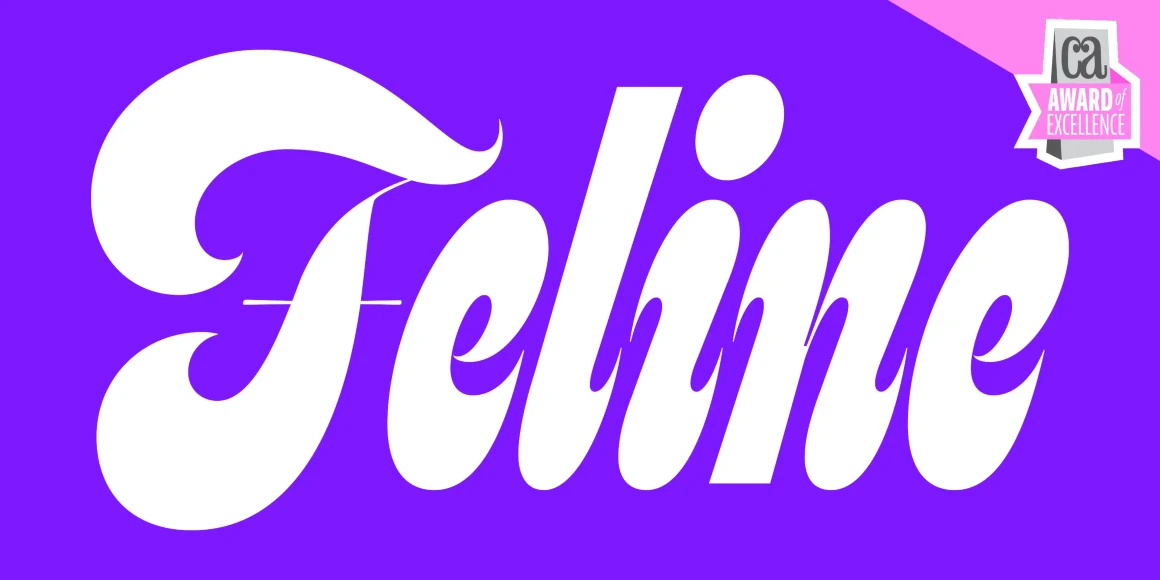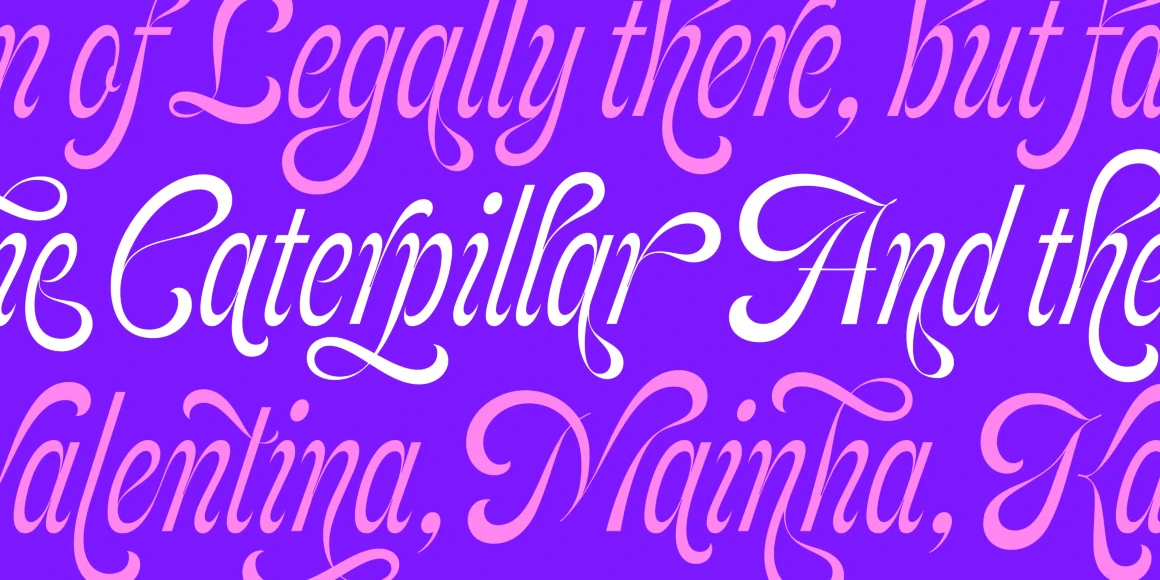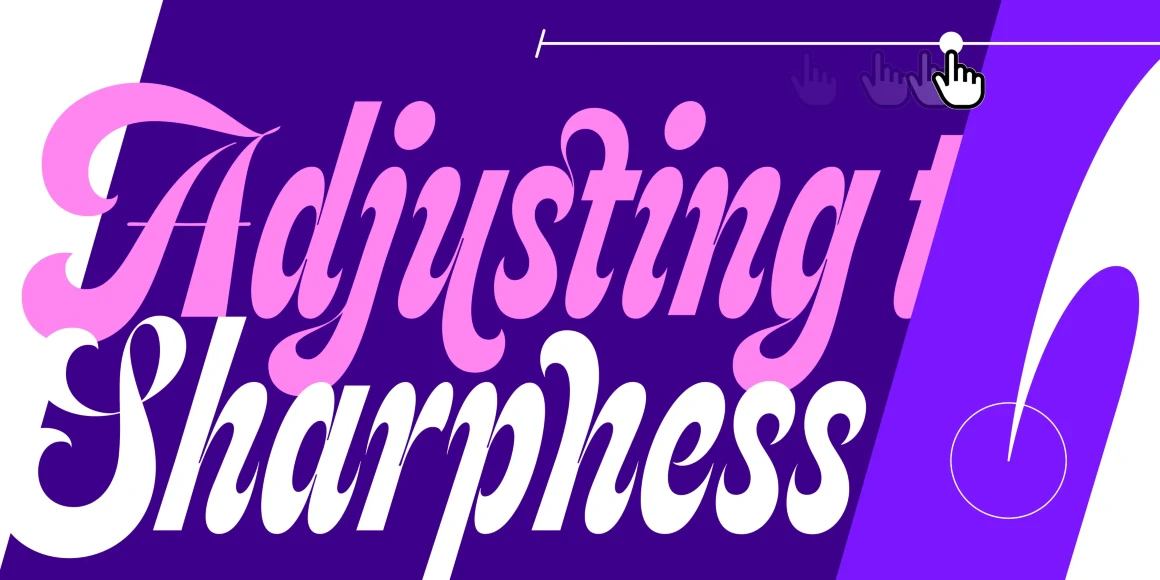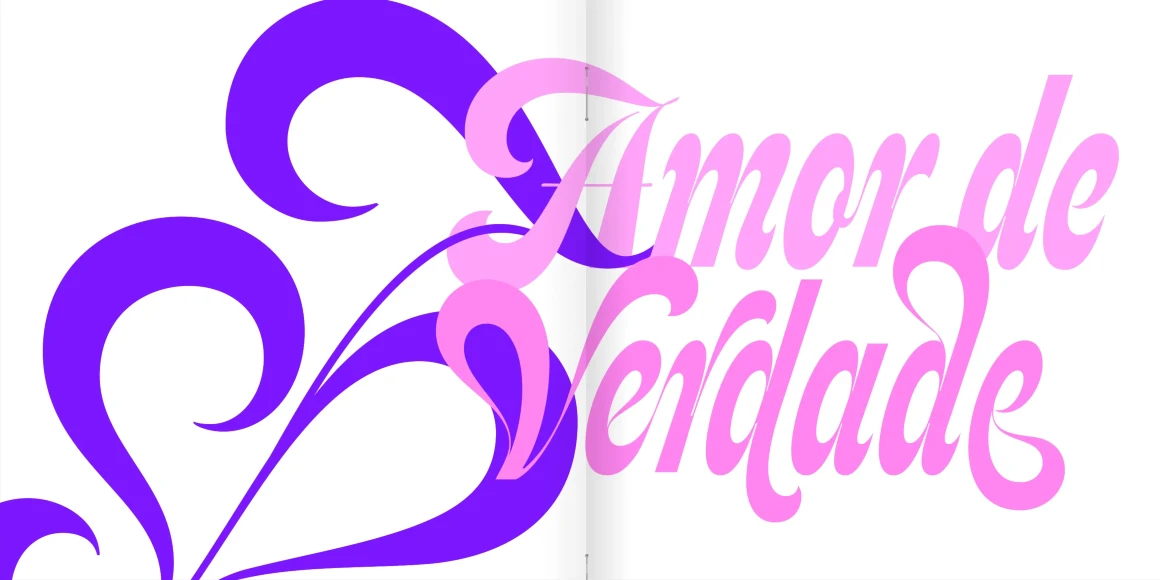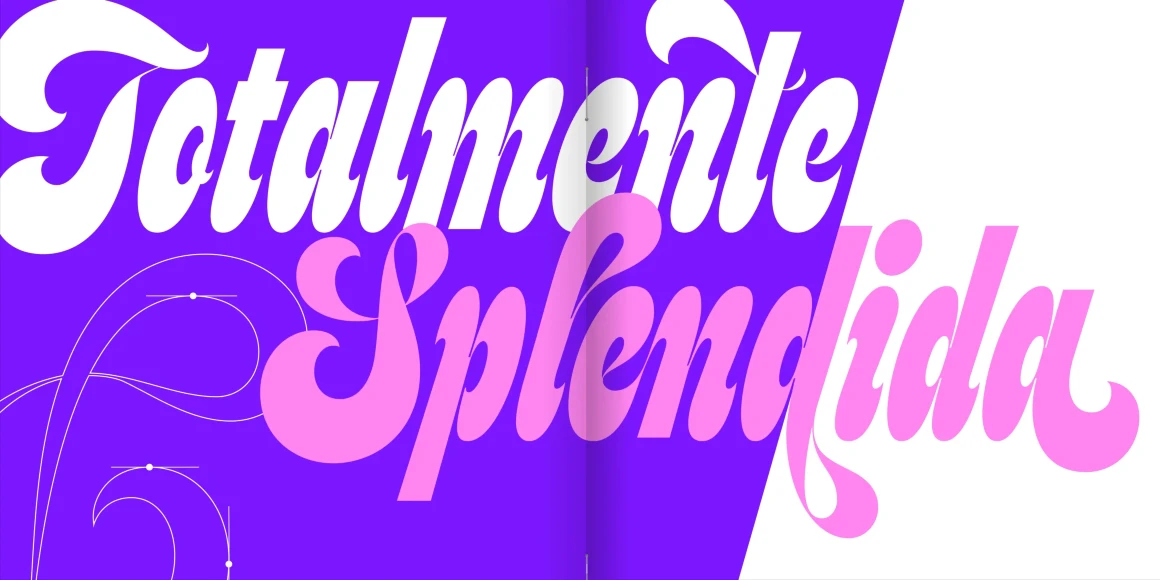
Feline
Feline is a sinuous script with exaggerated swashes and playful curves. Inspired by lettering spotted on a vintage pinball machine, it evolved into a liquid and groovy design evocative of other psychedelic 1960s scripts. The twist? The letters rarely connect! Its sculptural rhythm and expressive forms make it ideal for giving posters, magazines, packaging, and brands a voice as distinctive as its letterforms. Available in 6 weights, Thin to Extra Black, and 2 styles, Soft and Sharp, or as a 2-axes variable font.